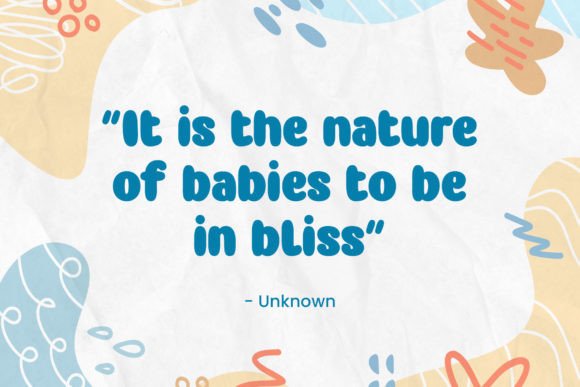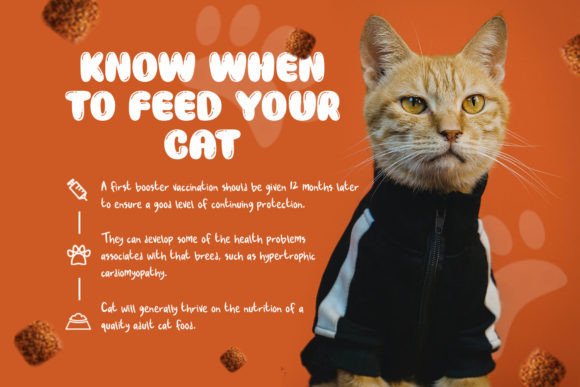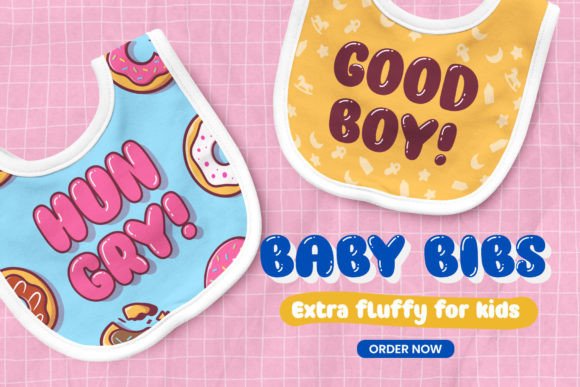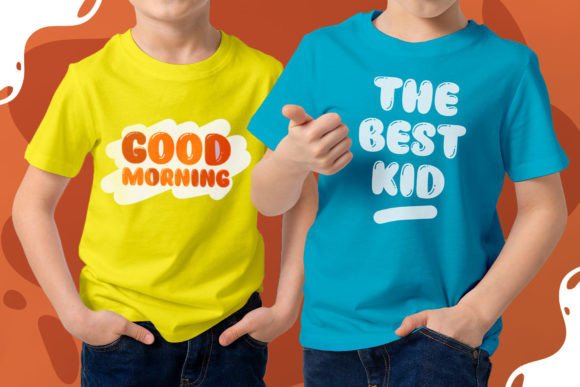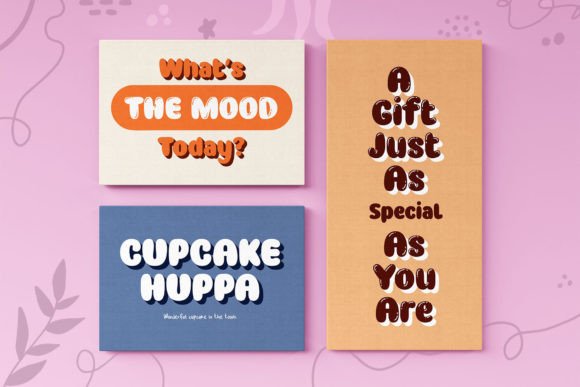
Introducing Baloon Everyday Font: The Perfect Choice for Cheerful Designs
Are you looking for a font that can add a touch of fun and playfulness to your designs? Look no further than Baloon Everyday Font! This brilliant display font is perfect for use on cheerful topics and is especially suitable for children’s themed designs. When combined with bright colors, Baloon Everyday Font can create a visually stunning and engaging visual experience.
What Makes Baloon Everyday Font So Special?
Baloon Everyday Font is a unique and aesthetically pleasing font that is sure to capture the attention of your audience. Its fun and playful design makes it perfect for use on a variety of projects, from children’s books and educational materials to posters, flyers, and other marketing materials. The font’s bold and rounded letters are easy to read and have a friendly feel that is sure to appeal to kids and adults alike.
Key Features of Baloon Everyday Font
- Fun and Playful Design: Baloon Everyday Font has a unique and playful design that is sure to add a touch of whimsy to your designs.
- Perfect for Children’s Designs: The font’s fun and colorful design makes it especially suitable for children’s themed designs, such as children’s books, educational materials, and kids’ party invitations.
- Easily Readable: The font’s bold and rounded letters are easy to read, making it perfect for use on a variety of projects, from posters and flyers to digital displays and more.
- Highly Versatile: Baloon Everyday Font can be used on a wide range of projects, from print materials to digital displays, and is perfect for use on both personal and commercial projects.
How to Use Baloon Everyday Font in Your Designs
Using Baloon Everyday Font in your designs is easy! Here are a few tips to get you started:
- Pair with Bright Colors: Baloon Everyday Font looks best when paired with bright and bold colors. Try pairing it with colors like pink, blue, yellow, and green to create a fun and playful look.
- Use on Children’s Designs: Baloon Everyday Font is especially suitable for children’s themed designs, such as children’s books, educational materials, and kids’ party invitations.
- Experiment with Different Sizes: Baloon Everyday Font looks great in a variety of sizes, from large display text to smaller body text. Experiment with different sizes to find the one that works best for your project.
Why Designers and Crafters Love Baloon Everyday Font
Designers and crafters love Baloon Everyday Font for a variety of reasons. Here are a few:
- Unique and Eye-Catching Design: Baloon Everyday Font has a unique and eye-catching design that is sure to capture the attention of your audience.
- Easily Customizable: The font is easily customizable, making it perfect for use on a wide range of projects.
- Perfect for a Variety of Projects: Baloon Everyday Font can be used on a wide range of projects, from print materials to digital displays, and is perfect for use on both personal and commercial projects.
In conclusion, Baloon Everyday Font is a fun, playful, and aesthetically pleasing display font that is perfect for use on cheerful topics. Its unique design and highly versatile nature make it a great choice for designers and crafters looking to add a touch of whimsy to their projects. Whether you’re working on a children’s themed design or just want to add some fun and personality to your project, Baloon Everyday Font is a great choice.